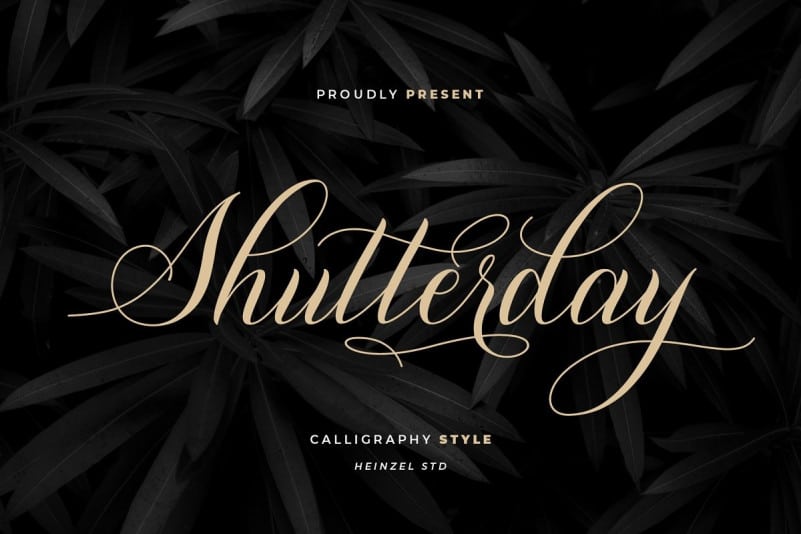
Shutterday Font
Shutterday Calligraphy Font is a new modern script font with an irregular baseline. Trendy and feminine style. It is PUA encoded which means you can access all of the glyphs with ease! It features a varying baseline, smooth lines, gorgeous glyphs and stunning alternates. It maintains its classy calligraphic influences while feeling contemporary and fresh. Fall in love with this font and bring your projects to the highest levels!
Shutterday would perfect for photography, watermark, social media posts, advertisements, logos & branding, invitation, product designs, label, stationery, wedding designs, product packaging, special events or anything that need handwriting taste. Shutterday also includes full set of uppercase and lowercase letters, multilingual symbols, numerals, punctuation and ligatures. The font has smooth wet ink texture, so would be perfect for all types of printing techniques+you can do embroidery, laser cut, gold foil etc.